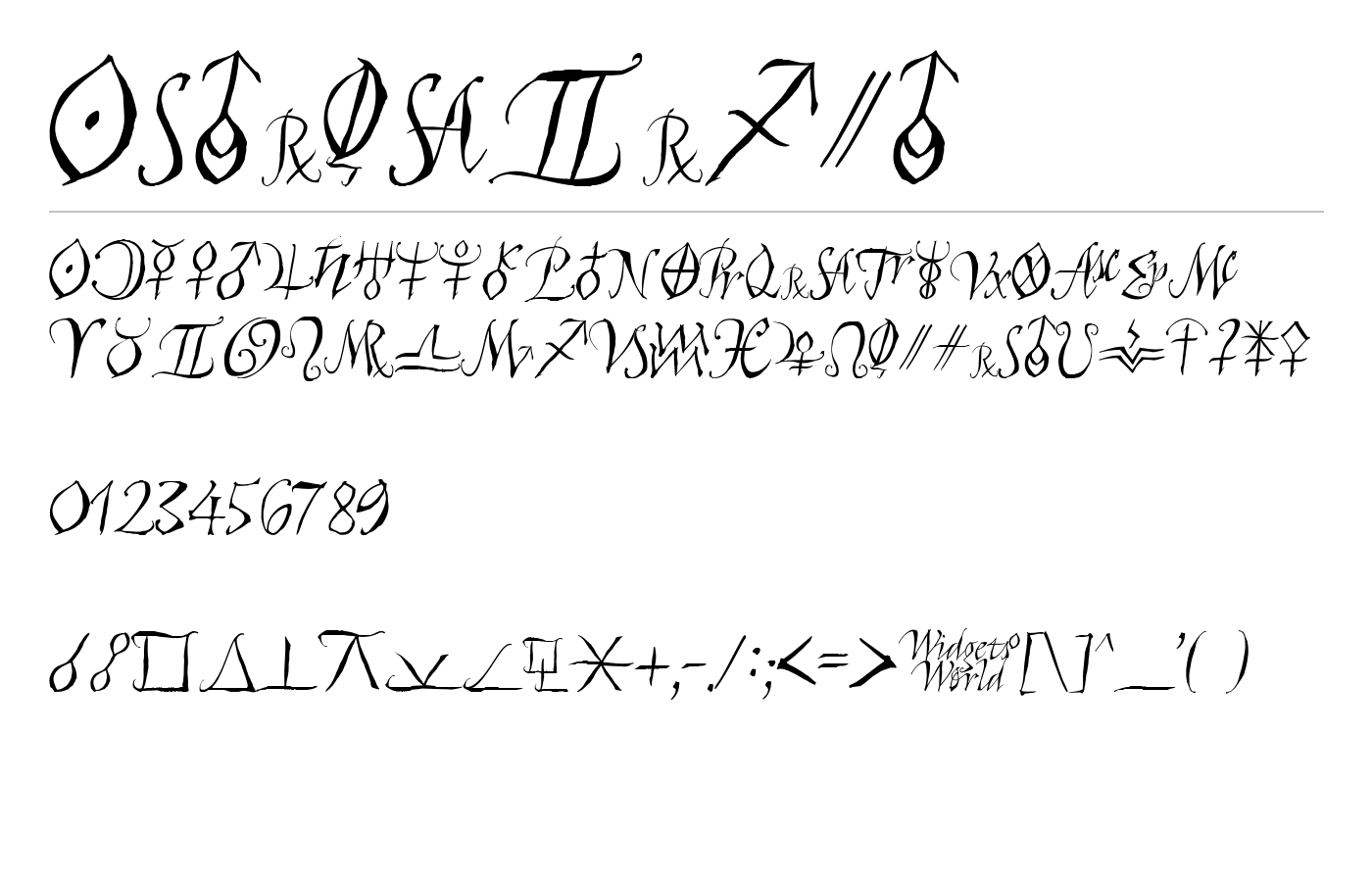
AstroScript is an ornamental script font with a mystical, celestial vibe, characterized by its delicate, flowing strokes and intricate, almost symbolic letterforms. It features a light weight with narrow proportions and a high x-height impression, making it ideal for decorative uses where a magical or esoteric mood is desired. This font works best for themed logos, posters, and artistic projects where a unique, enchanting atmosphere is key.